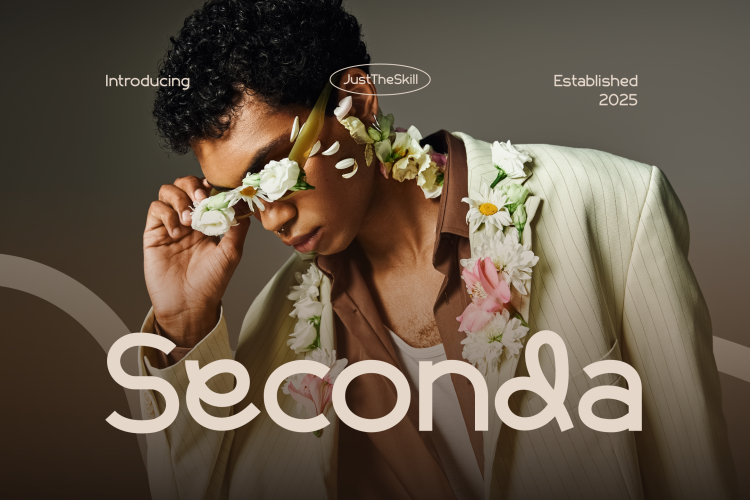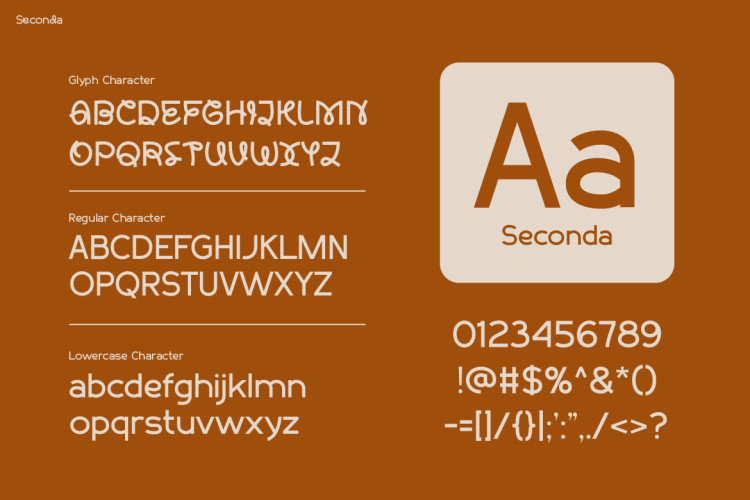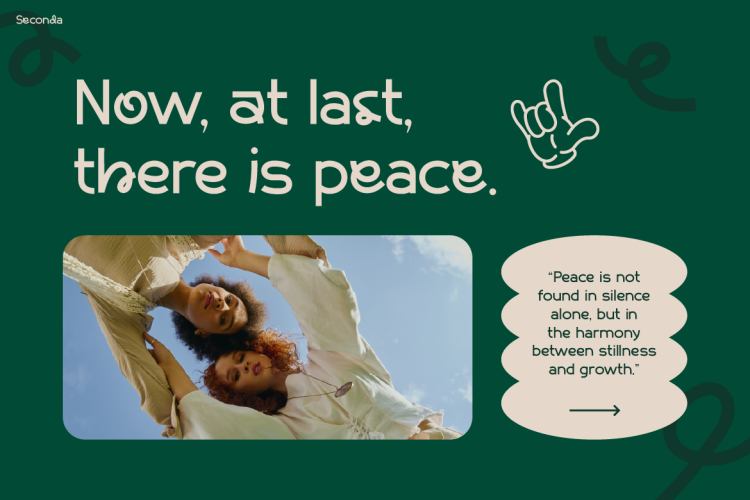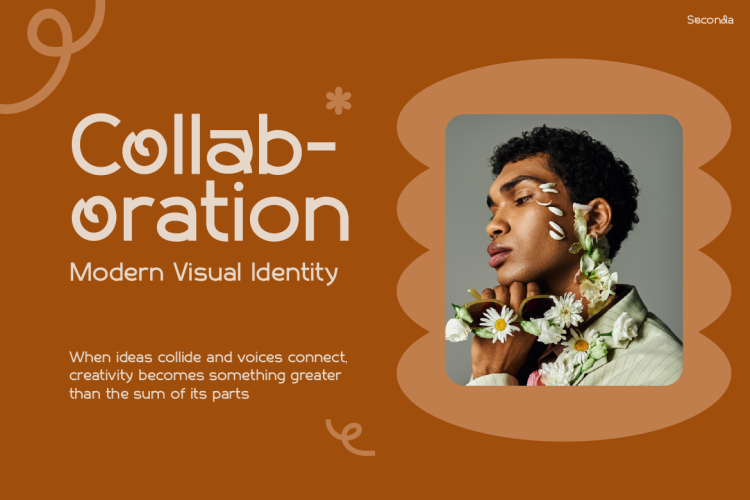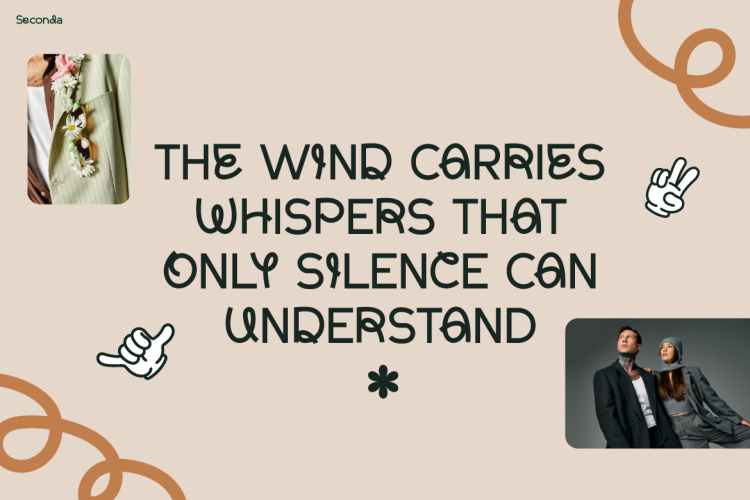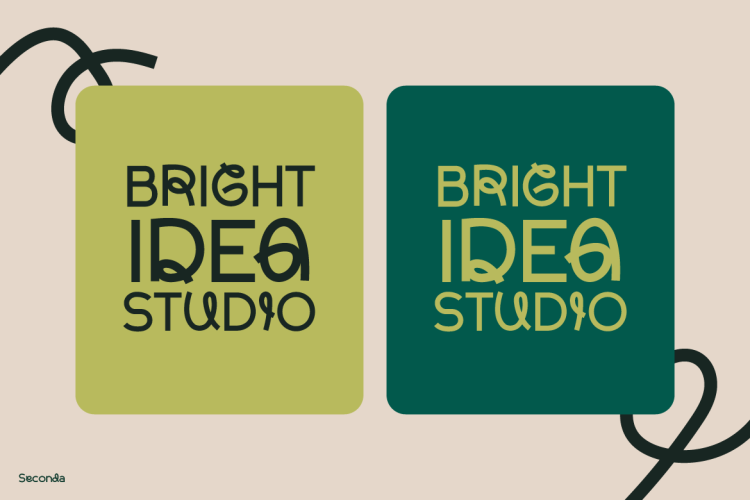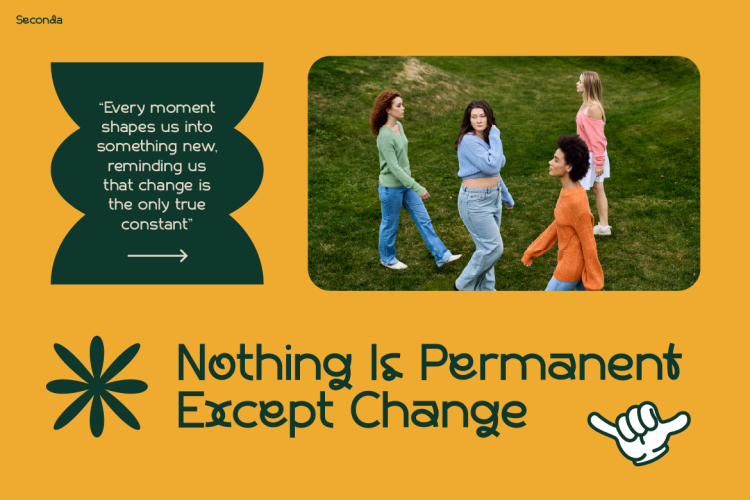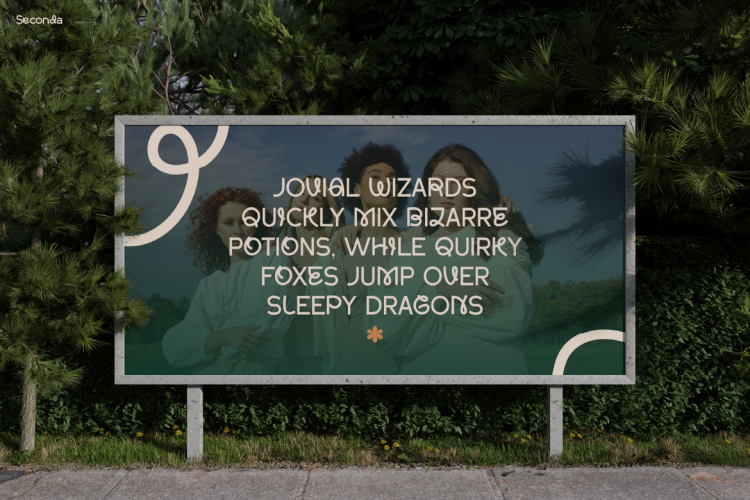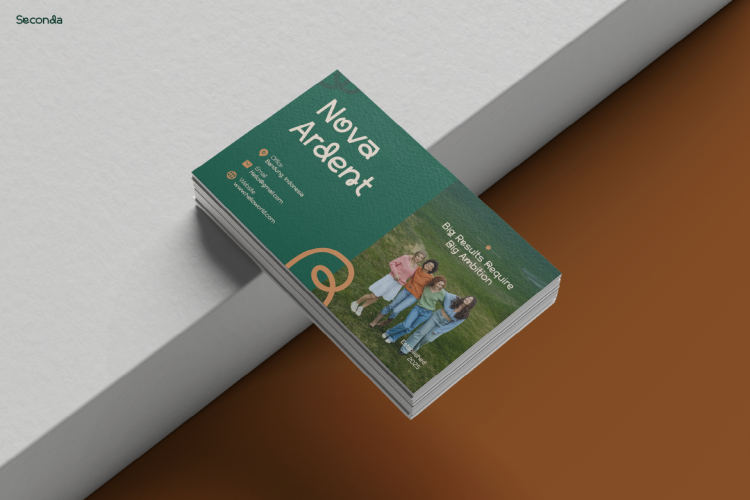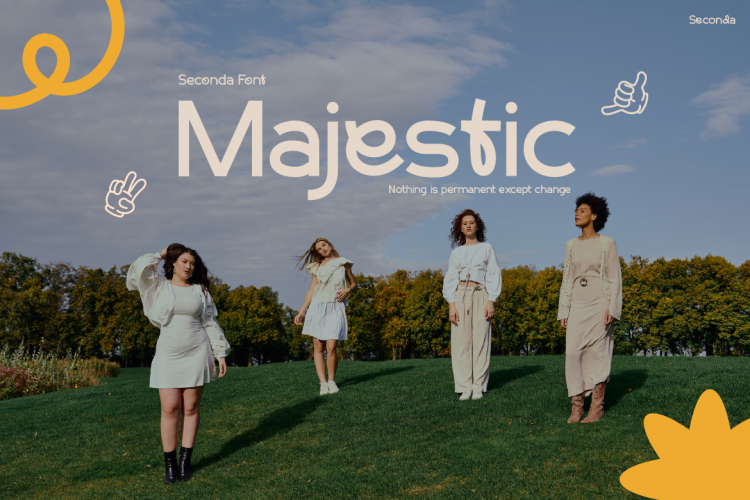
Instagram Font Seconda is a modern and stylish typeface that instantly grabs attention with smooth curves and clean lines. Moreover, the design feels warm and approachable, yet professional, which makes it versatile for both creative and formal projects. Its unique charm comes from the balance of playful round shapes and strong readability. Therefore, whether in bold headlines, elegant branding, or inspiring quotes, this font adds personality and harmony to every design. In fact, itโs more than a fontโitโs a tool for building a strong visual identity that feels authentic and memorable.
Another reason why this font stands out is its adaptability. Unlike many trendy fonts that only look good in certain contexts, Instagram Font Seconda maintains beauty across digital screens and printed materials. It works equally well in large headlines and smaller text, ensuring your message stays clear and visually appealing. As a result, it gives creators the freedom to experiment without worrying about losing balance or readability.
This font works beautifully across many creative platforms. For example, it is ideal for branding, modern social media content, fashion campaigns, and lifestyle visuals. In addition, its clean lettering ensures strong readability, which is perfect for Instagram posts, Pinterest graphics, and YouTube thumbnails. At the same time, it brings elegance to printed works like posters, brochures, magazines, invitations, and packaging. Furthermore, the smooth curves create a friendly mood, while its structure keeps it professional enough for corporate presentations and advertising.
Because of this balance, Instagram Font Seconda is not just a typeface, but also a creative asset that saves time and effort. Designers can use it across multiple projects without needing to switch fonts to fit different themes.